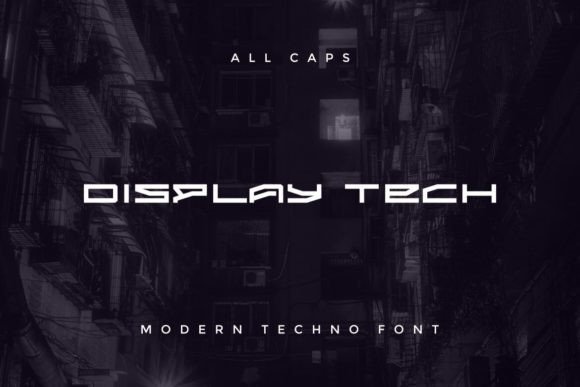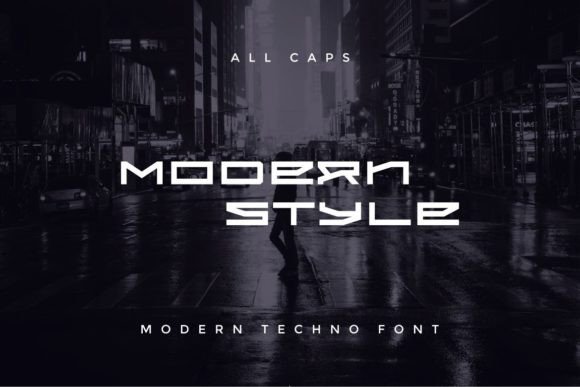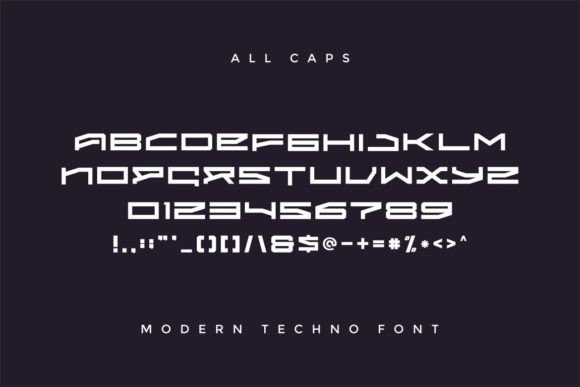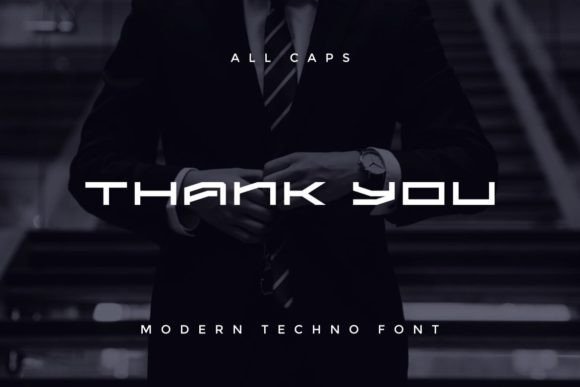
Introduction to Sarbes Font
Have you ever stared at a blank canvas, feeling the weight of a creative project’s expectations? The blank page can be intimidating, but it’s in these moments that true design magic happens. As a designer, you know the thrill of bringing a concept to life, and the perfect font can make all the difference.
That’s where Sarbes Font comes in – a game-changing addition to your design arsenal. With its bold, modern display style, Sarbes Font is the perfect companion for attention-grabbing headlines, logos, and a wide range of design projects. Whether you’re working on a high-quality brochure or a free download for your website, Sarbes Font adds a dynamic touch that’s sure to captivate your audience.
What sets Sarbes Font apart is its versatility and readability in both digital and print formats. This design resource is ideal for designers looking to elevate their creative projects and take their designs to the next level. With a transparent background, Sarbes Font is the perfect choice for designers seeking a high-quality font that adds a touch of sophistication to any project.
Key Features of Sarbes Font
- Features a unique, modern design with a transparent background
- Includes a wide range of characters, including uppercase and lowercase letters, numbers, and punctuation
- Perfect for use in logos, branding, and other visual identity projects
Honest Review: Sarbes Font
I recently had the opportunity to work with the Sarbes Font, and I must say it’s been a game-changer for my creative project. As a designer, I’m always on the lookout for high-quality design resources that can elevate my work, and the Sarbes Font definitely delivers.
- ✨ Beautiful, elegant design that adds a touch of sophistication to any layout
- ⚠️ Limited font sizes and weights, which can make it difficult to achieve specific design effects
- ⚠️ Not all characters are available, which can cause issues with complex typography
Overall, I’m impressed with the Sarbes Font and would definitely recommend it to designers working on high-end creative projects. While it may not be perfect, its strengths far outweigh its weaknesses, and I’m excited to continue using it in my work.
Tips for Getting the Most Out of Sarbes Font
Use Sarbes Font in conjunction with other high quality design resources to create a cohesive and professional design. Experiment with different font sizes and colors to find the perfect balance for your creative project.
Sarbes Font is perfect for creating logo designs, branding materials, and marketing materials. Its high quality design and transparent background make it a valuable resource for designers and creatives.